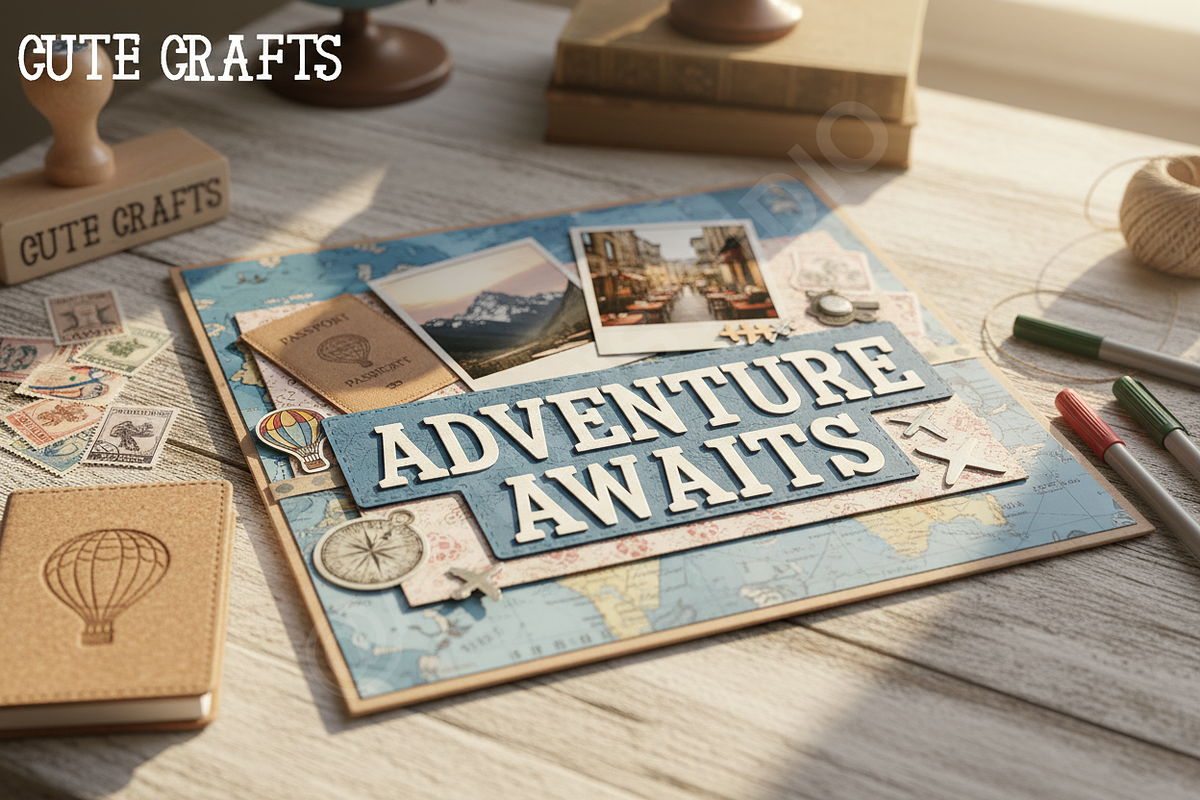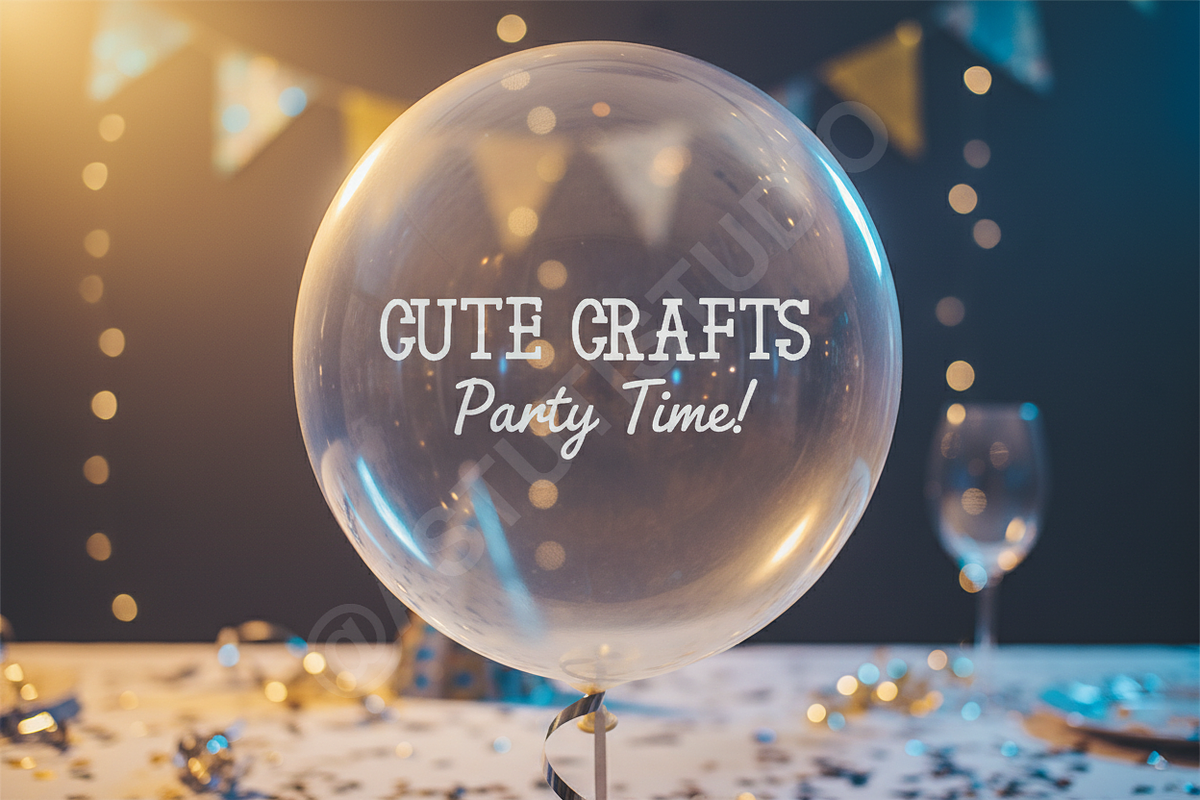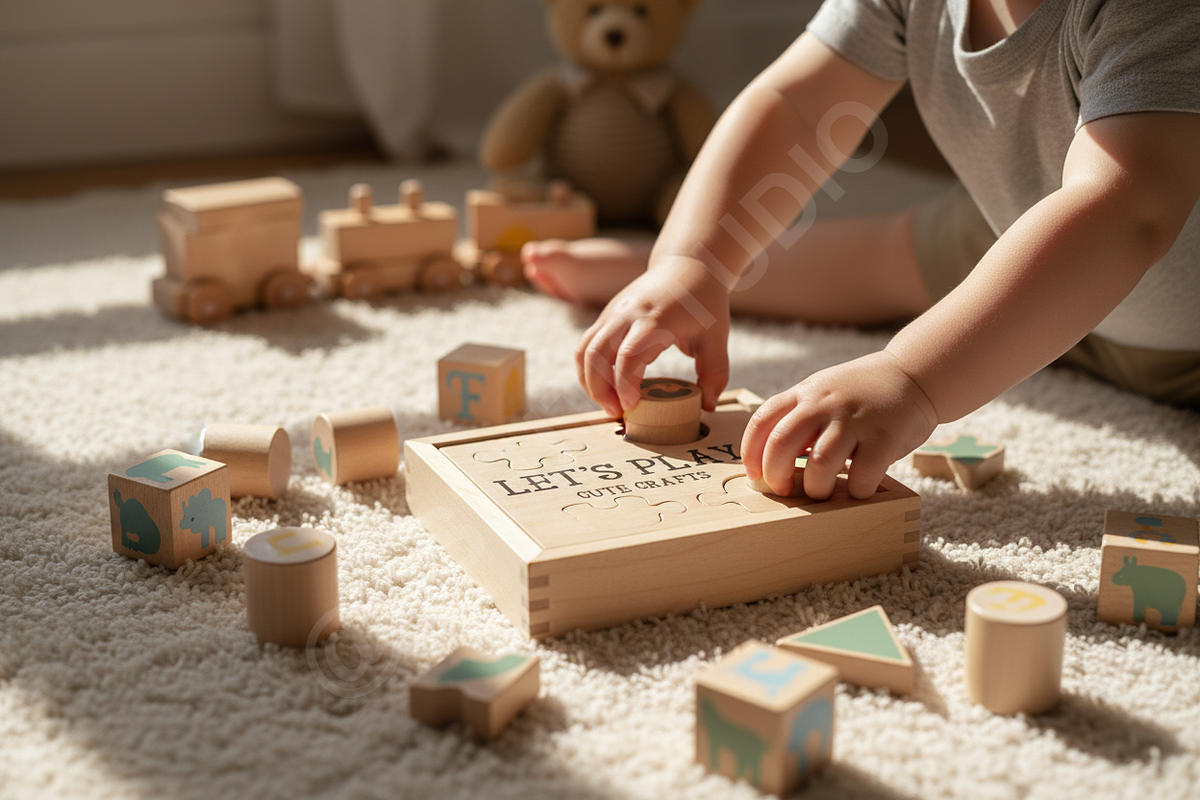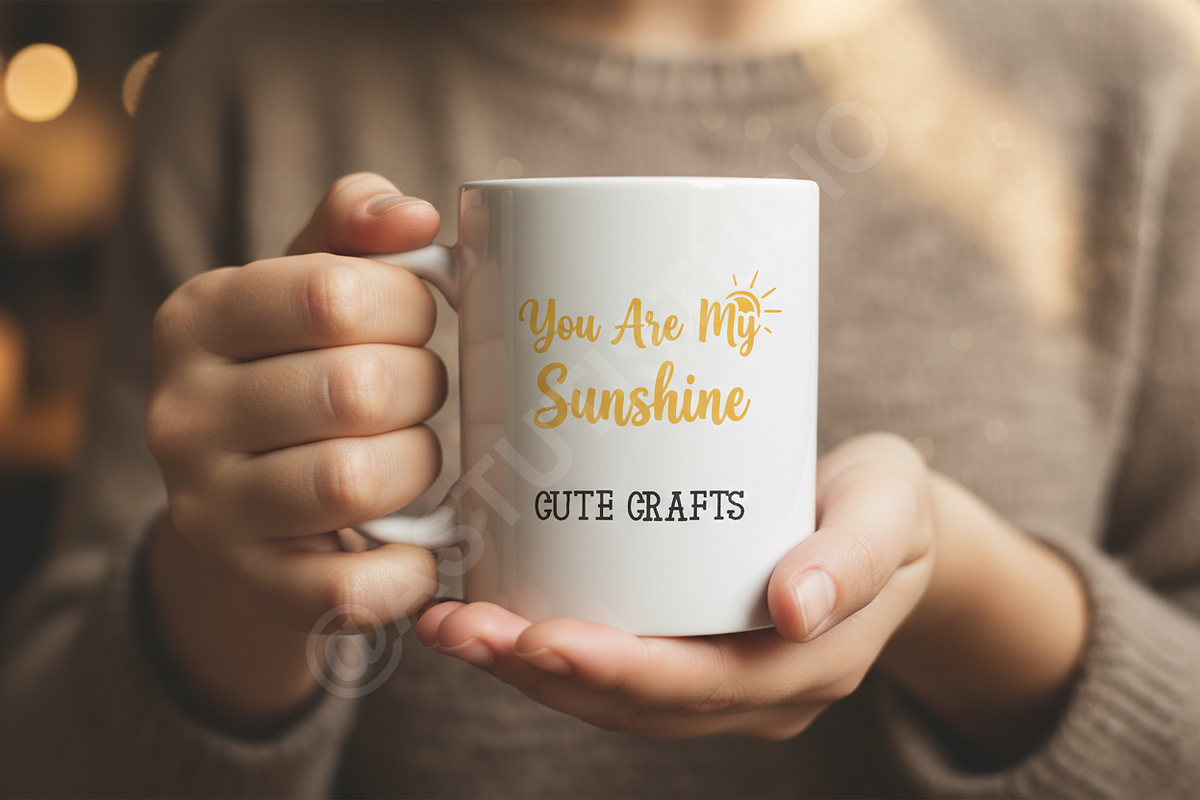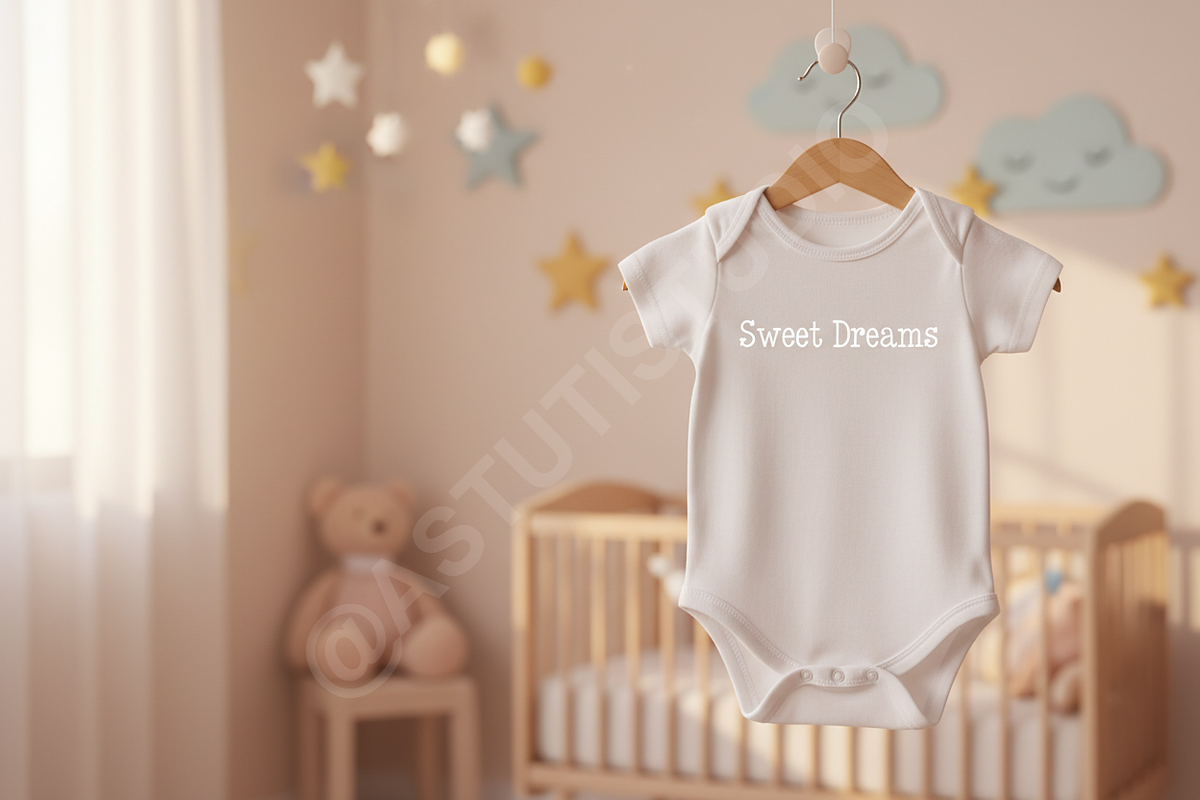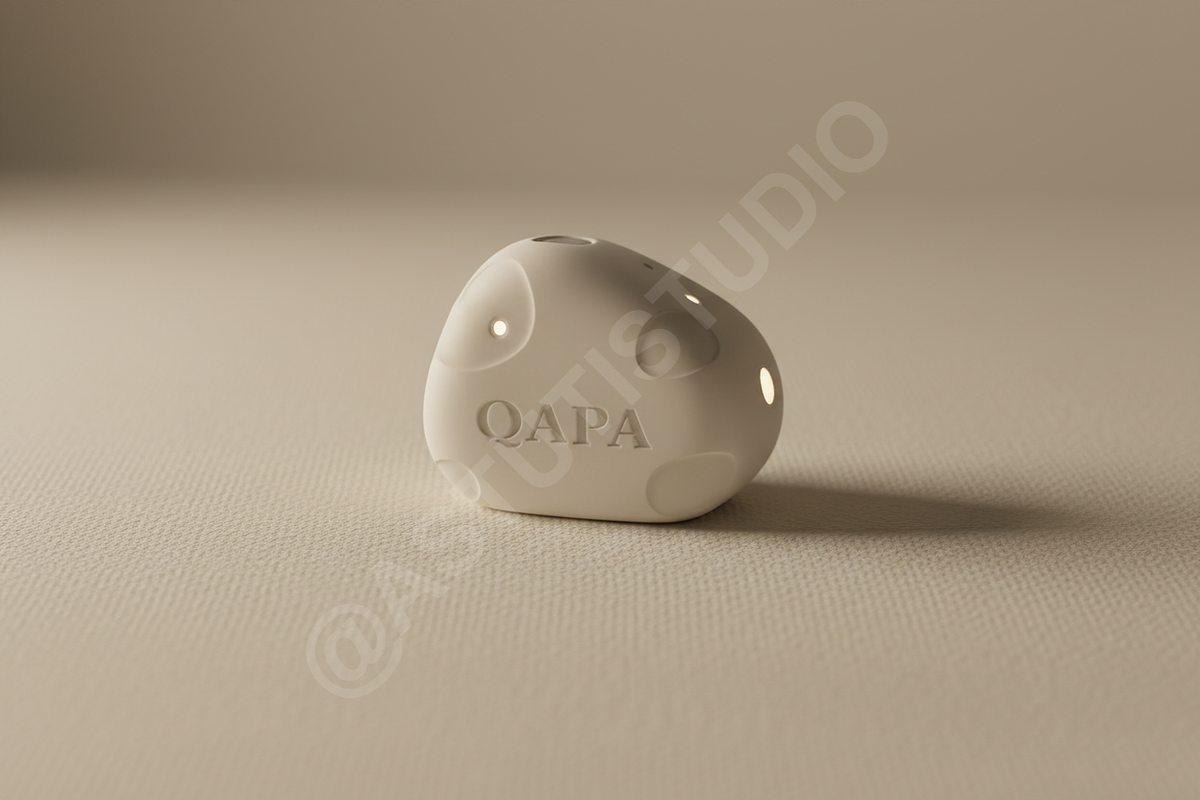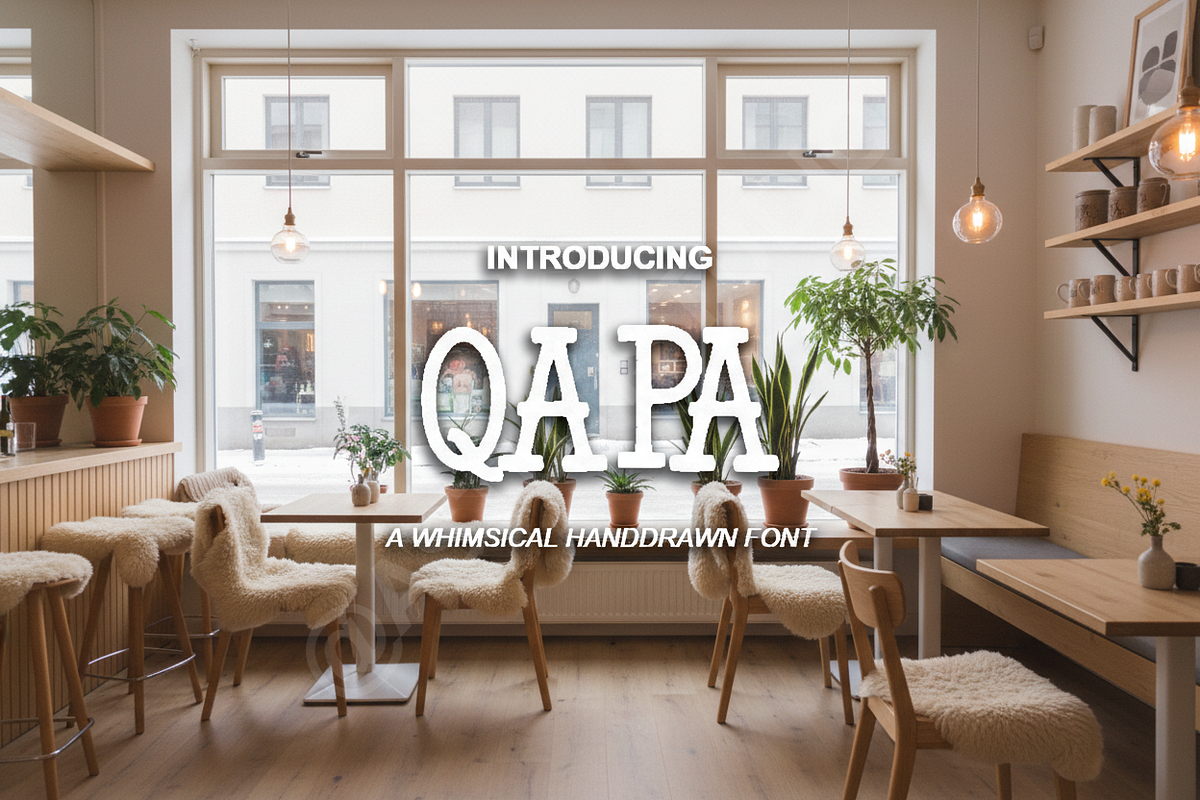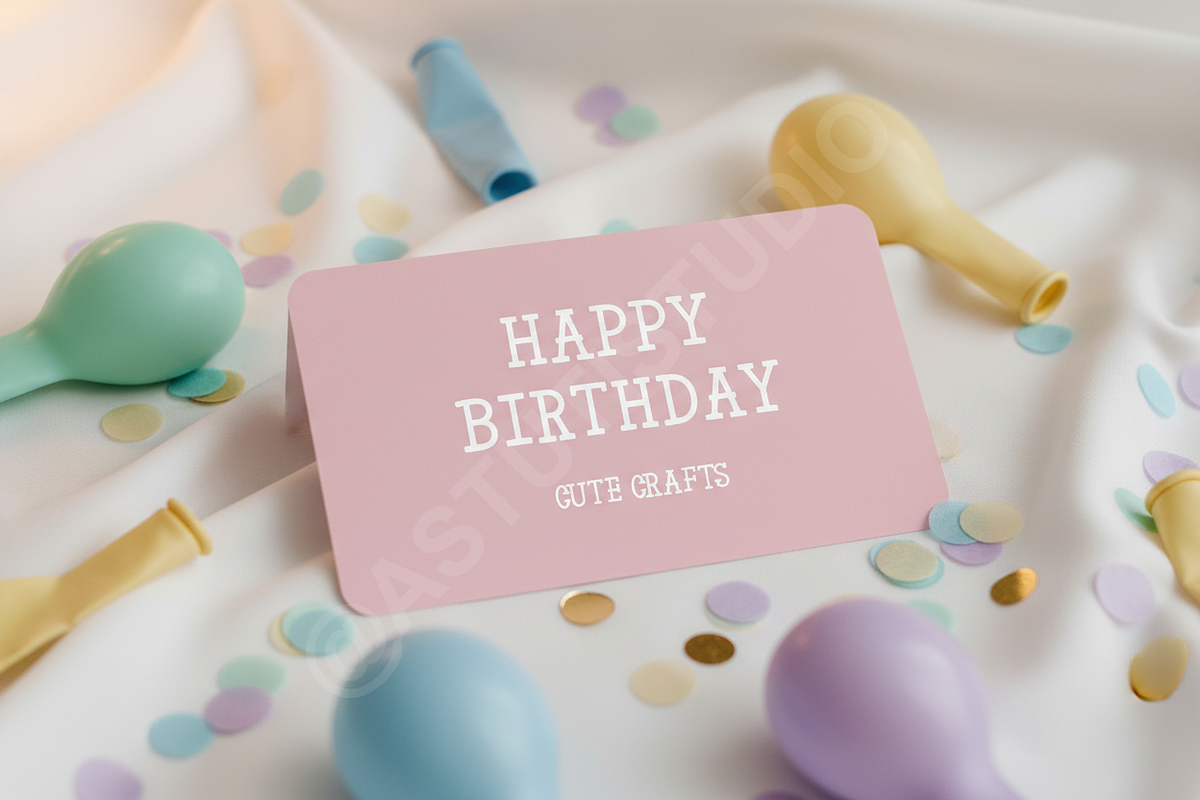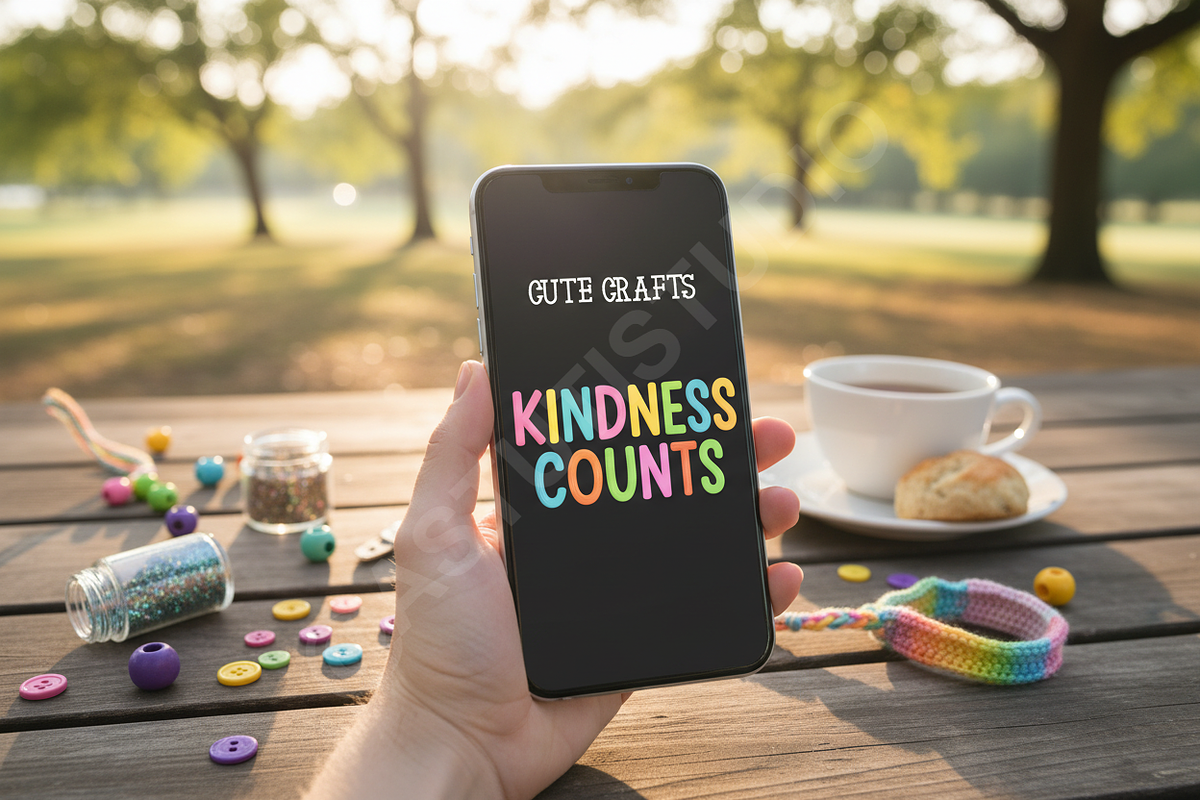
Qapa - Luxury Minimalist Serif Type
Qapa is a premium serif typeface meticulously crafted for high-end design projects. Embodying a sense of timeless sophistication, this font offers a unique balance of sharp elegance and modern minimalism. Whether you are crafting a visual identity for a luxury brand or designing a high-fashion editorial layout, Qapa provides the refined touch necessary to elevate your creative work to a professional studio standard.
- Elegant high-contrast strokes for a sophisticated look
- Carefully balanced geometric proportions for maximum readability
- Sophisticated ligatures and stylistic alternates
- Comprehensive multilingual support for international branding
- Precision-kerning for a clean, professional finish in every word
- Full uppercase and lowercase character sets
- Numbers, punctuation, and essential symbols
- Access to stylistic alternates via OpenType features